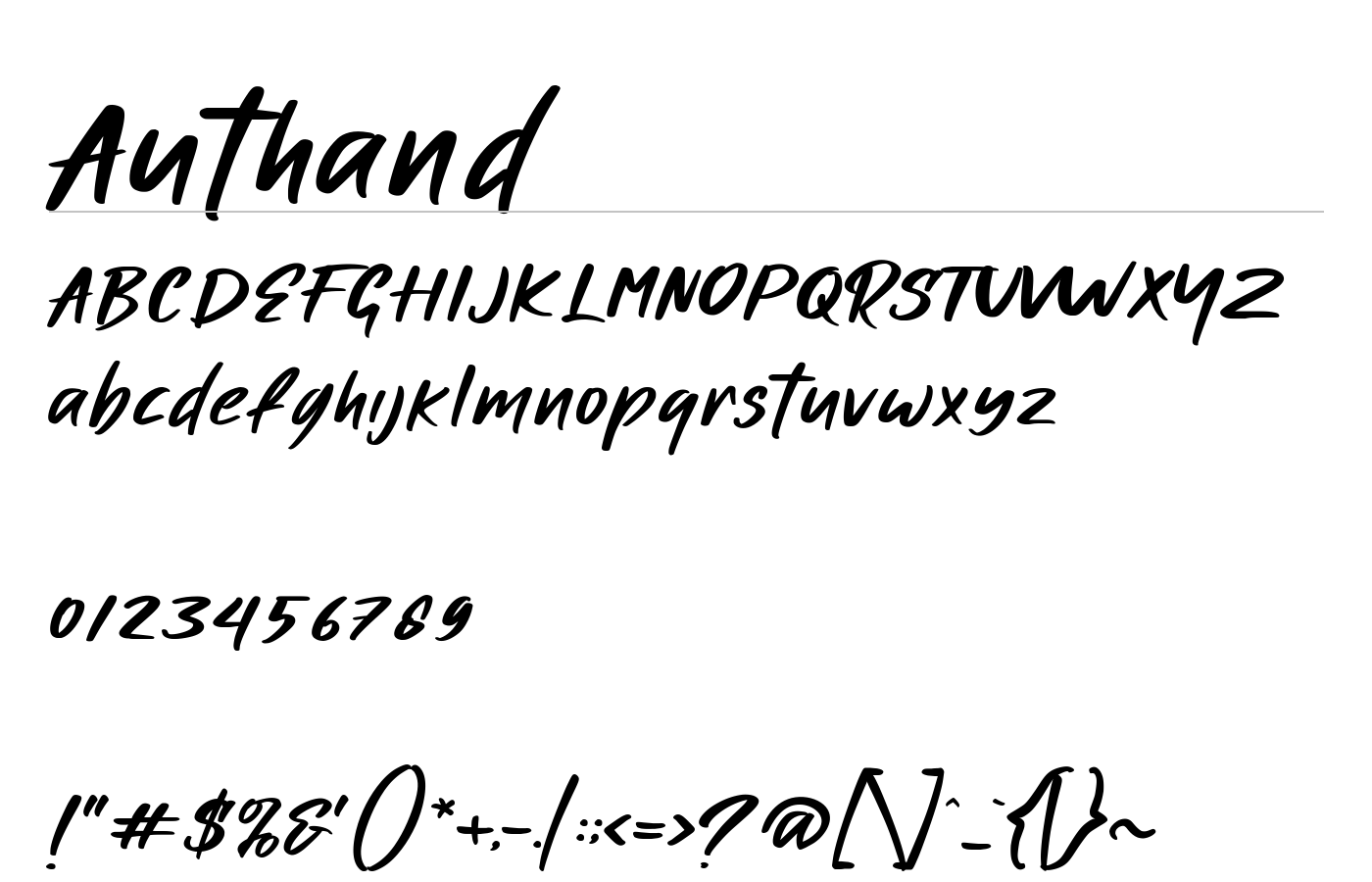
Authand is a lively and casual script font that mimics natural handwritten brush strokes with smooth, flowing lines and moderate contrast. It has a friendly, approachable personality well-suited for creative branding, lifestyle projects, and informal communications where a personal touch is desired. This font shines in logos, social media graphics, and packaging, adding warmth and a handcrafted feel without sacrificing readability.
Authand Font
About Authand Font
| Designer | Hendra Pratama |